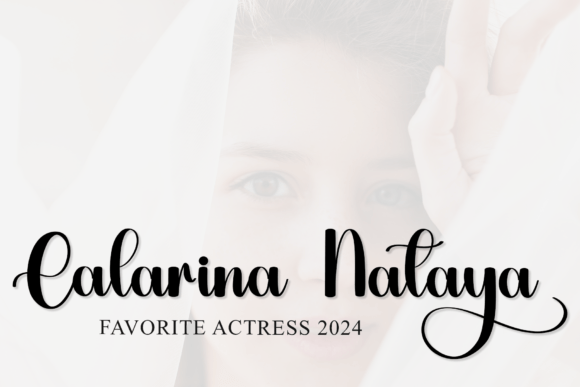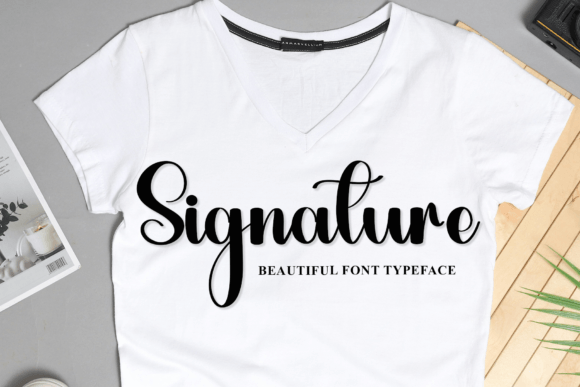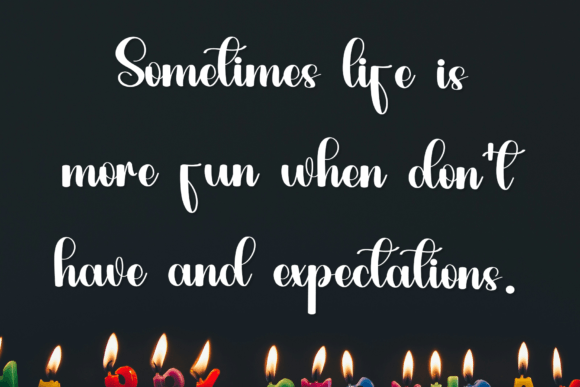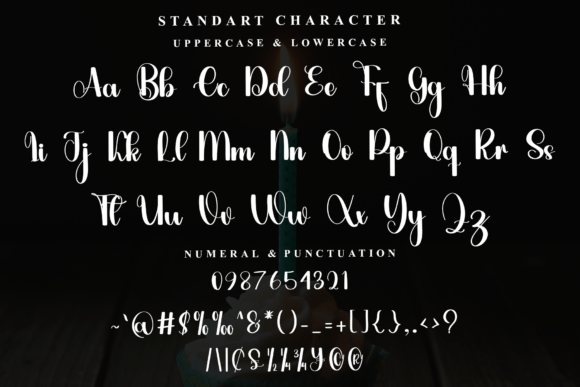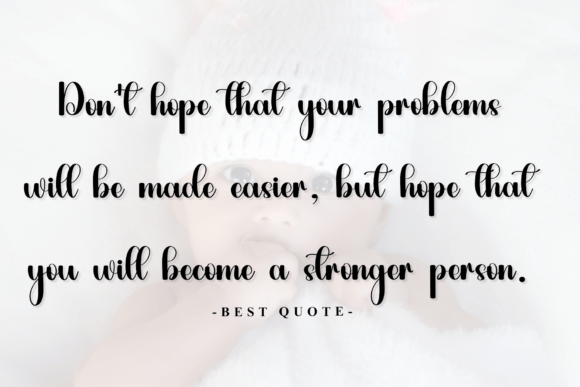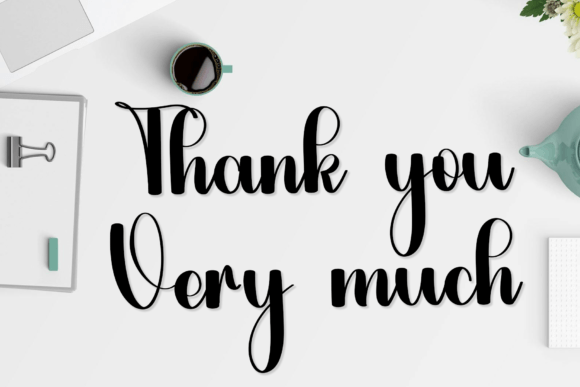
Introducing Birthday Font: A Charming Handwritten Delight
Are you looking for a font that adds a personal touch to your designs? Look no further than Birthday Font, a charming handwritten font that exudes warmth and personality. With its playful yet legible style, this font is perfect for a variety of creative projects, from greeting cards and invitations to branding and more.
The Essence of Handmade Authenticity
Birthday Font captures the essence of handmade authenticity with its natural strokes and irregularities. This font is designed to mimic the imperfections of handwriting, giving your designs a unique and personal feel. The natural strokes and irregularities of the font make it look like it was written by hand, adding a touch of warmth and personality to your projects.
Birthday Font is perfect for a variety of creative projects, including:
- Greeting Cards: Add a personal touch to your greeting cards with Birthday Font. Whether it’s a birthday, anniversary, or holiday card, this font is sure to make your card stand out.
- Invitations: Create custom invitations for parties, weddings, and other special events with Birthday Font. The font’s playful yet legible style makes it easy to read and understand.
- Branding: Use Birthday Font to add a personal touch to your brand. The font’s unique and handmade style makes it perfect for logos, packaging, and other branding materials.
Here are some key features of Birthday Font:
- Handwritten Style: Birthday Font has a charming handwritten style that exudes warmth and personality.
- Playful yet Legible: The font is playful and fun, yet legible and easy to read.
- Natural Strokes and Irregularities: The font features natural strokes and irregularities that give it a handmade feel.
- Perfect for Creative Projects: Birthday Font is perfect for a variety of creative projects, including greeting cards, invitations, and branding.
Tips for Using Birthday Font
Here are some tips for using Birthday Font:
- Use it for Headings and Titles: Birthday Font is perfect for headings and titles. Use it to add a personal touch to your designs.